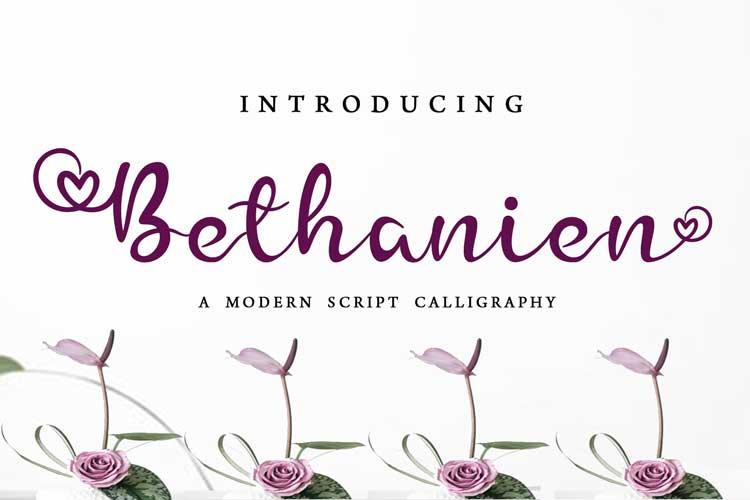
Bethanien Font Description
Bethanien is a sweet and romantic handwritten font. It looks stunning on wedding invitations, thank you cards, quotes, greeting cards, logos, business cards and every other design which needs a handwritten touch. This font is PUA encoded which means you can access all of the glyphs and swashes with ease!